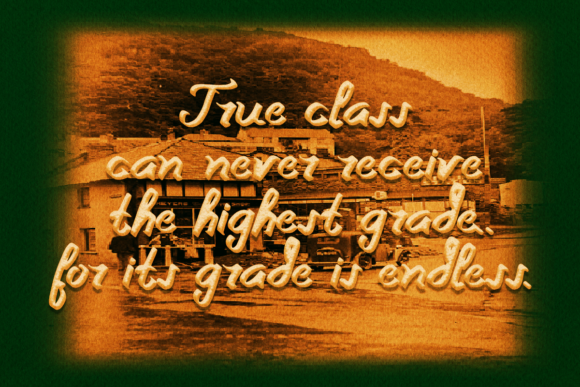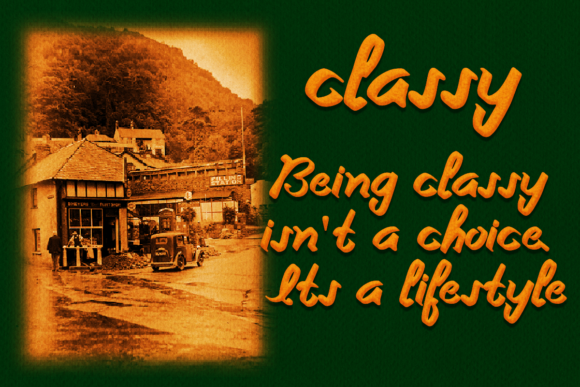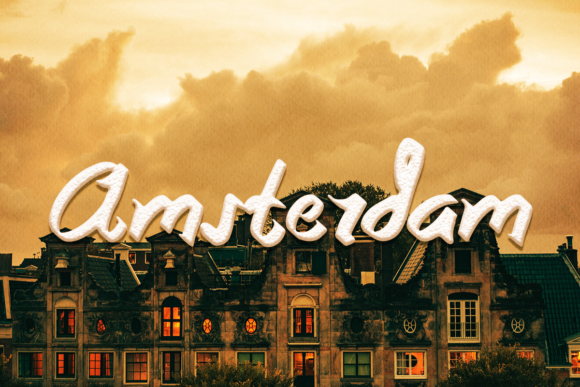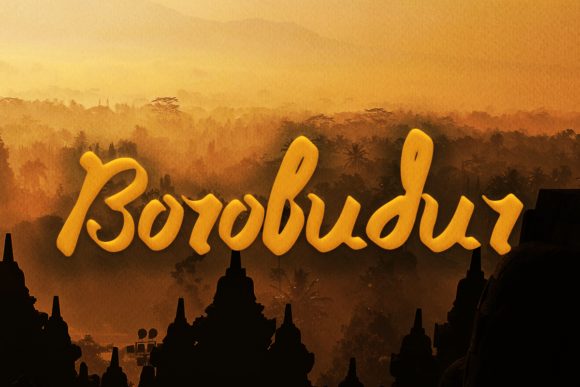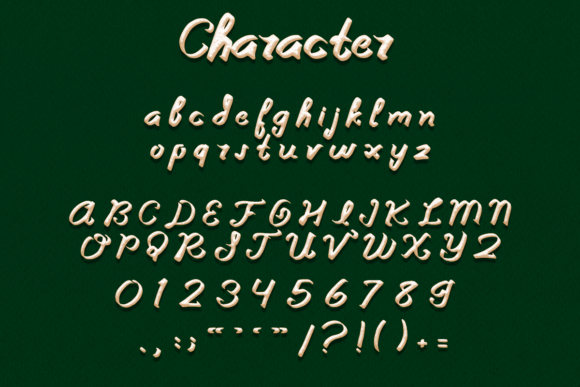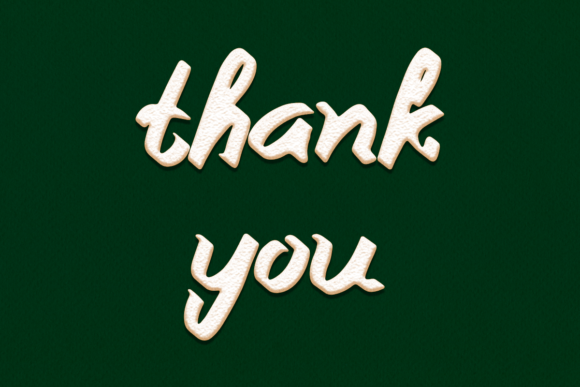
Babylonya Font: Elevate Your Designs with a Stylish and Dynamic Touch
In the world of typography, fonts play a crucial role in conveying the tone and personality of a design. For designers and crafters looking to add a touch of elegance and sophistication to their projects, the Babylonya font is an excellent choice. This gorgeous and cursive paint brush handwritten font is crafted to give your headlines and logotype projects a stylish touch, making it perfect for a wide range of design applications.
The Characteristics of Babylonya Font
Babylonya font reads as strong, confident, and dynamic, making it an ideal choice for designers who want to create a lasting impression. The font’s cursive and handwritten style gives it a unique and nostalgic character that can add a touch of warmth and personality to your designs. The paint brush strokes used to create the font give it a organic and natural look, making it perfect for designs that require a more artistic and creative approach.
Key Features of Babylonya Font
- Cursive and Handwritten Style: The Babylonya font features a beautiful cursive and handwritten style that gives it a unique and elegant look.
- Paint Brush Strokes: The font’s paint brush strokes give it a organic and natural look, making it perfect for designs that require a more artistic and creative approach.
- Strong and Confident: The font reads as strong, confident, and dynamic, making it an ideal choice for designers who want to create a lasting impression.
- Nostalgic Character: The font’s nostalgic character can add a touch of warmth and personality to your designs, making it perfect for projects that require a more personal touch.
Uses of Babylonya Font
The Babylonya font is versatile and can be used for a wide range of design applications, including:
- Headlines and Logotypes: The font is perfect for creating stylish and eye-catching headlines and logotypes that require a touch of elegance and sophistication.
- Branding and Packaging: The font’s unique and nostalgic character makes it an excellent choice for branding and packaging projects that require a more personal touch.
- Invitations and Stationery: The font’s elegant and cursive style makes it perfect for creating beautiful invitations and stationery that require a touch of sophistication.
- Digital and Print Media: The font can be used for both digital and print media, making it a versatile choice for designers who work on a wide range of projects.
Why Choose Babylonya Font?
There are many reasons why designers and crafters should choose the Babylonya font for their projects. Here are a few:
- Unique and Elegant: The font’s unique and elegant style makes it an excellent choice for designers who want to create a lasting impression.
- Versatile: The font is versatile and can be used for a wide range of design applications, making it a great addition to any designer’s toolkit.
- Easy to Read: The font is easy to read, making it perfect for projects that require a clear and concise message.
- High-Quality: The font is of high-quality, making it perfect for professional design projects.
| Font Name | Babylonya Font |
| Author | WNGSTD |
In conclusion, the Babylonya font is a gorgeous and cursive paint brush handwritten font that is perfect for designers and crafters looking to add a touch of elegance and sophistication to their projects. With its unique and nostalgic character, strong and confident style, and versatility, this font is an excellent choice for a wide range of design applications. Whether you’re working on a headline, logotype, branding project, or digital and print media, the Babylonya font is sure to elevate your designs and make them stand out.